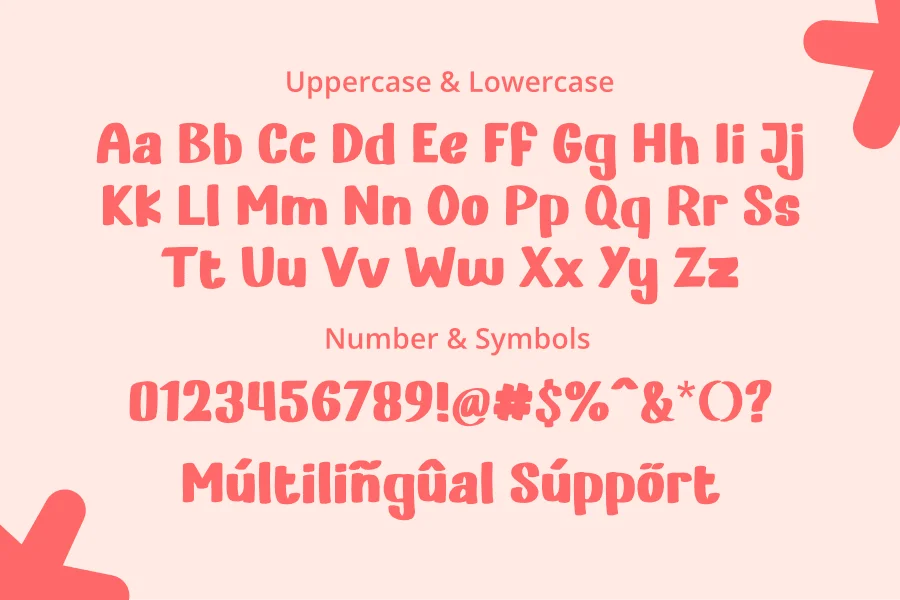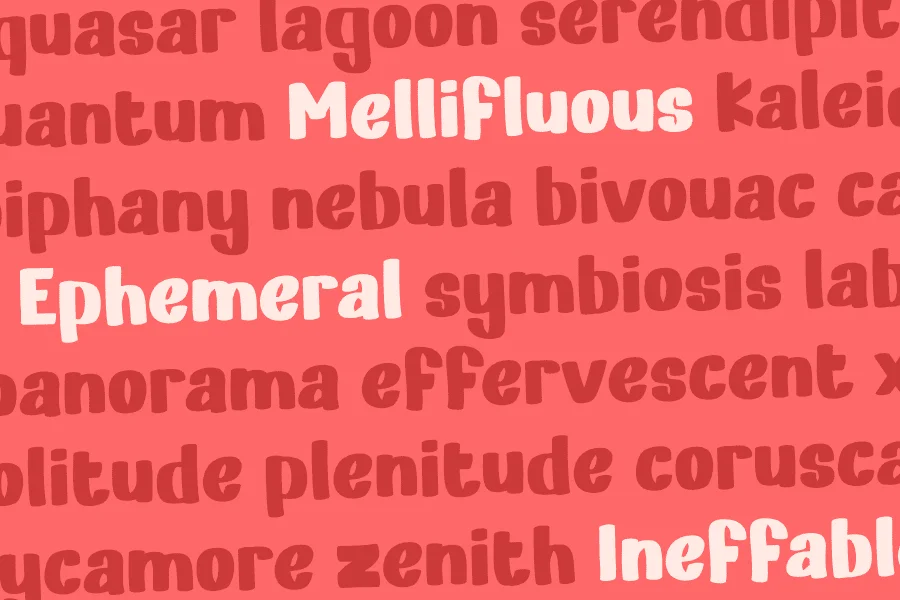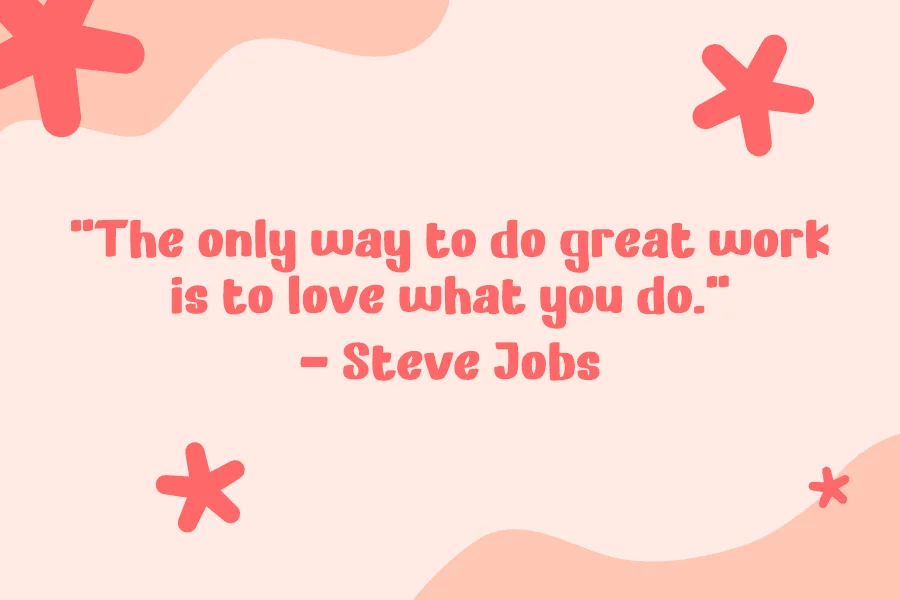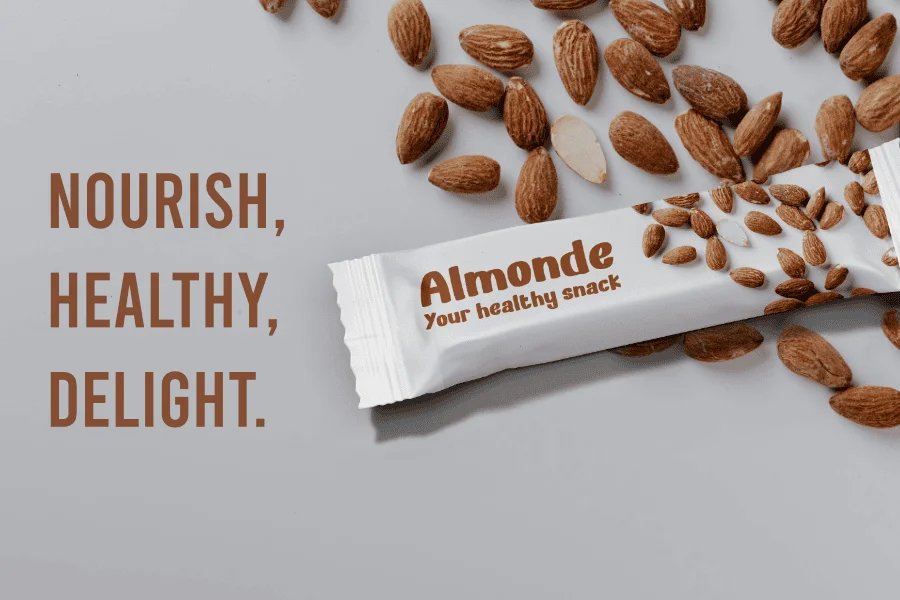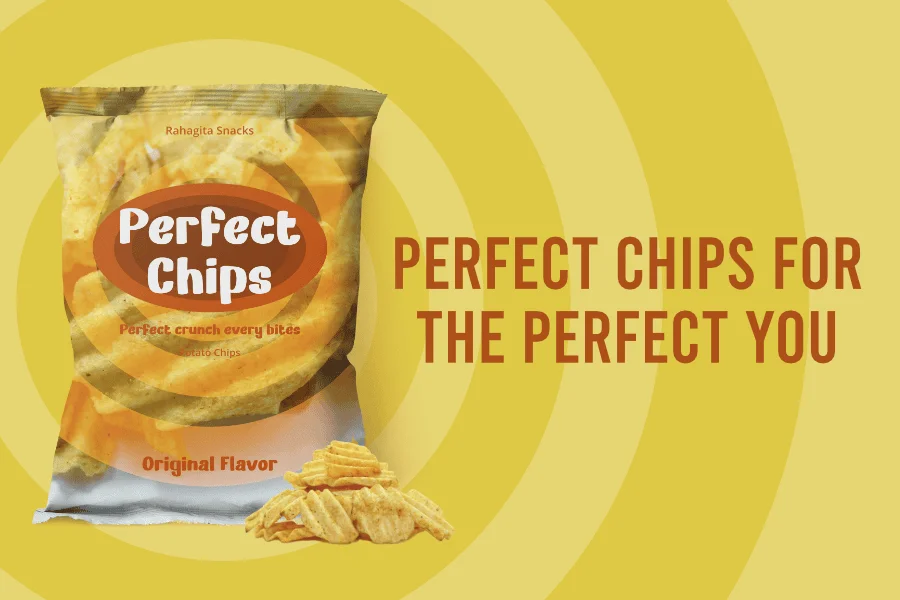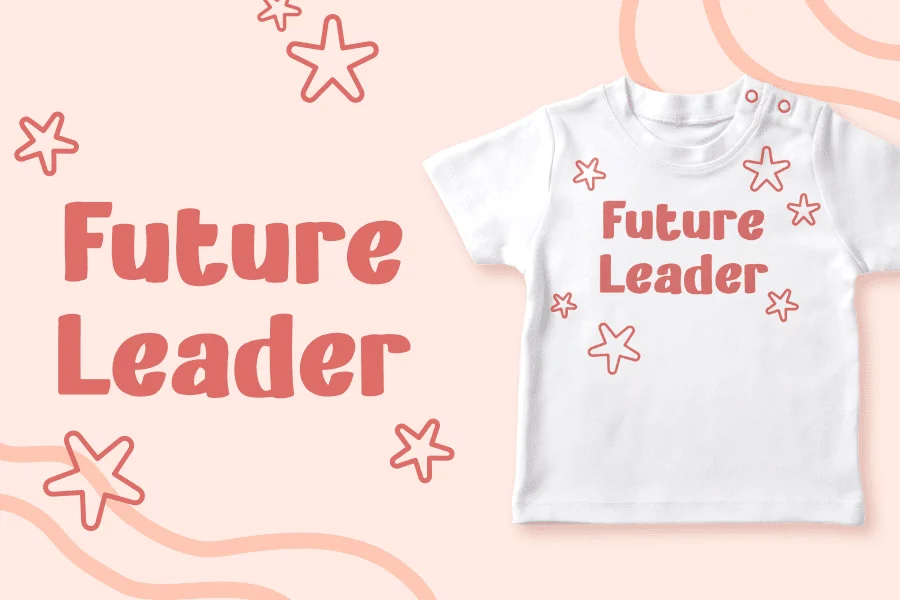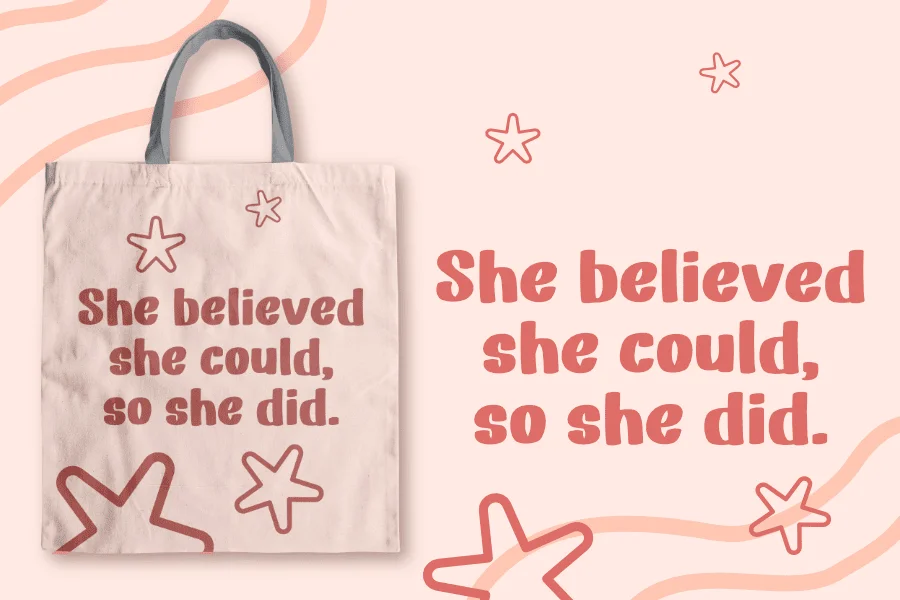
This font is an embodiment of a cute and bold aesthetic, making it ideal for a spectrum of crafting needs. Whether you’re designing greeting cards, playful posters, or engaging social media content, Sunday Shine adds a touch of joy to your creations. Moreover, Sunday Shine seamlessly extends its versatility to product branding and packaging design, becoming the perfect choice to infuse products with a vibrant and memorable identity. Explore the world of Sunday Shine, where every letter tells a story of bold cheerfulness, making your designs shine with personality and charm.